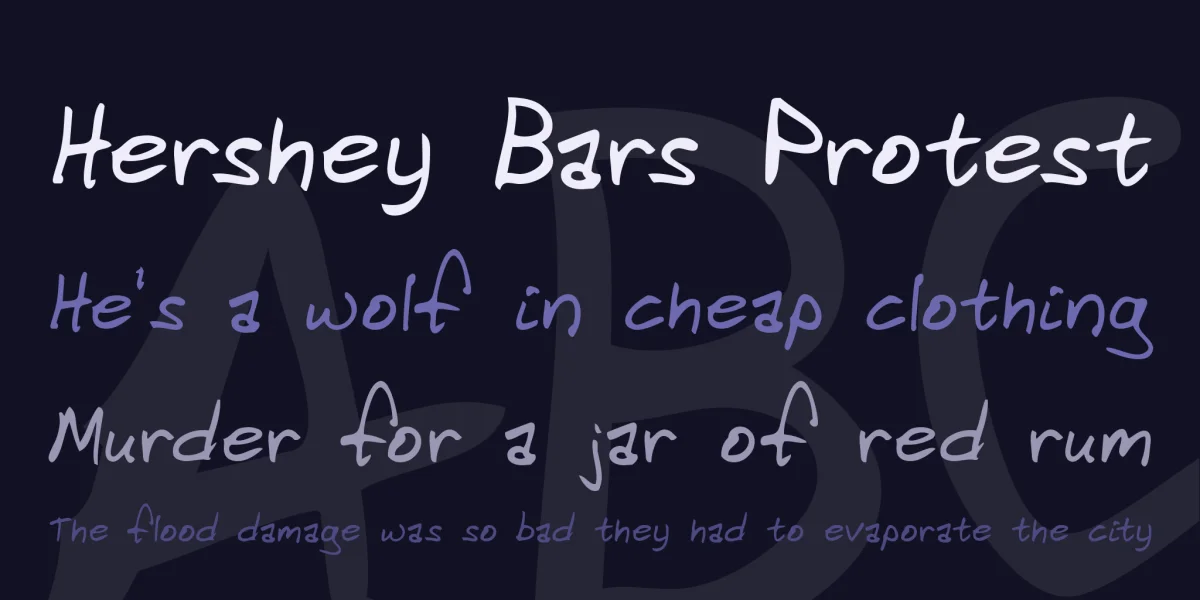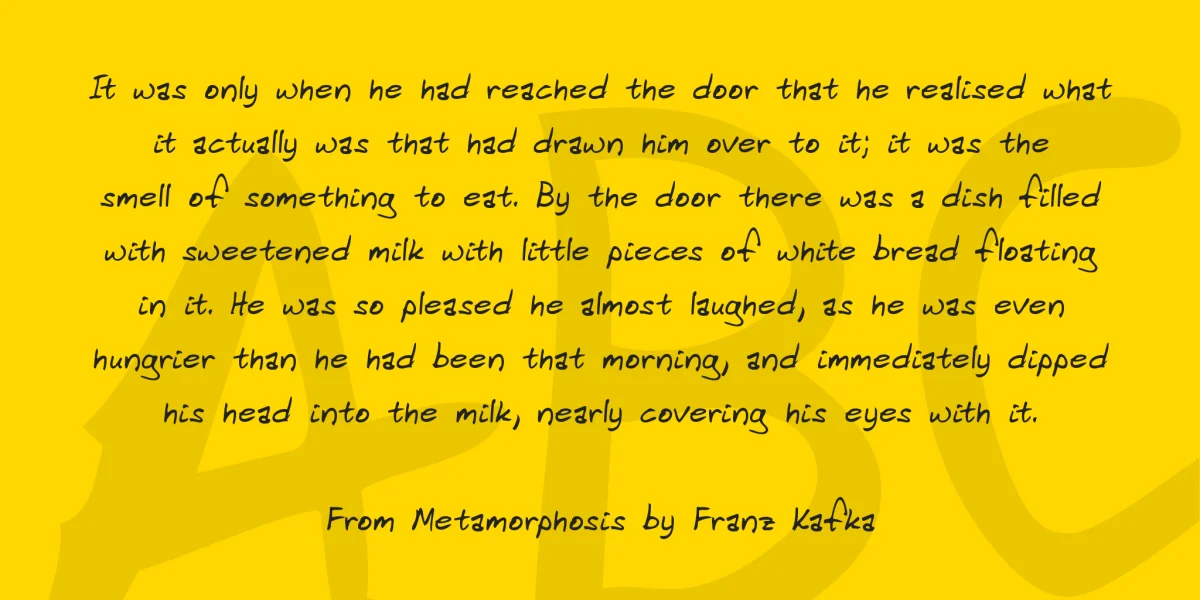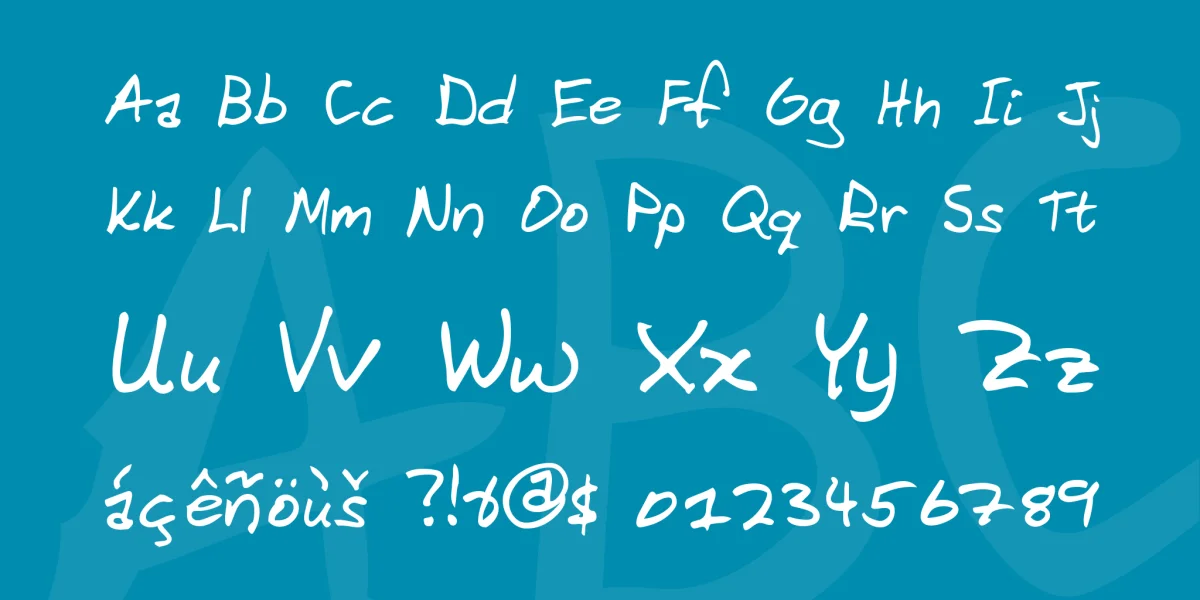
This font is basically my handwritting. Why anyone would want to use my crappy handwritting for anything, I can't say. It would be a good way to forge a note from me I guess. Anyway, use it for whatever you want, its released under the GPL so change it if you need to. The name come from the book Domestic Manners of the Americans, by Fanny Trollope.
Font contains, letters, numbers, punctuation, accented characters and some special characters.